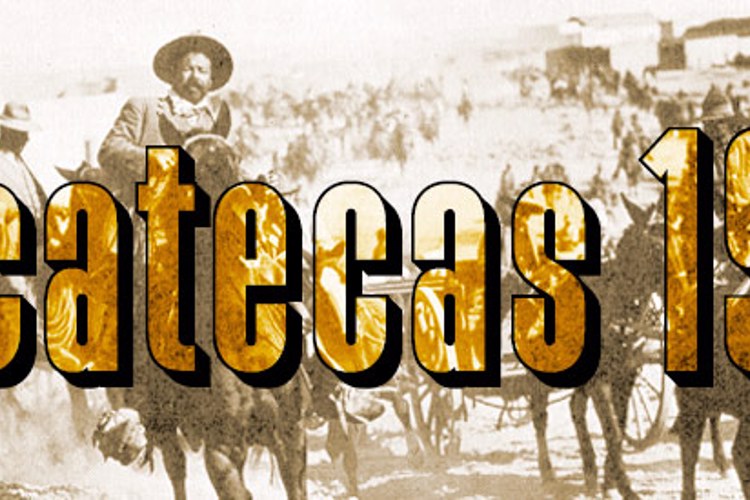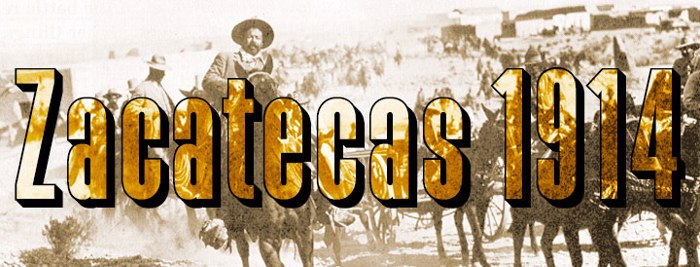
Zacatecas 1914 Font
Ultra-condensed Style
Condensed typography display with border and 3D extrusion derived from my previous typography La Babaca.
This font is dedicated to the capture of Zacatecas occurred in 1914 during the Mexican revolution.